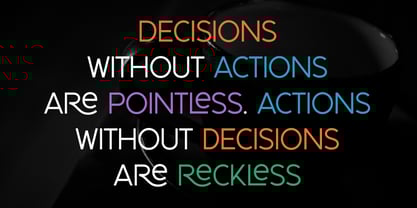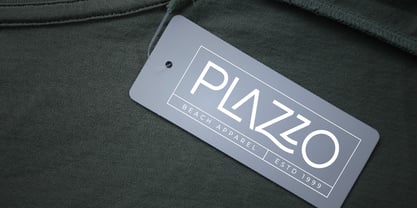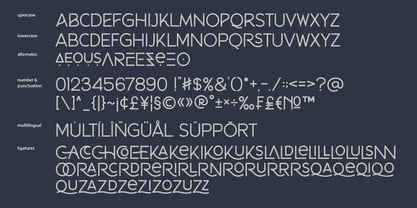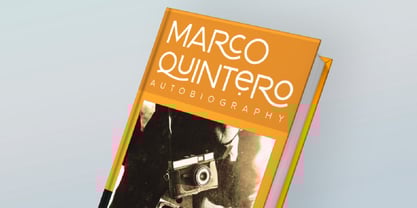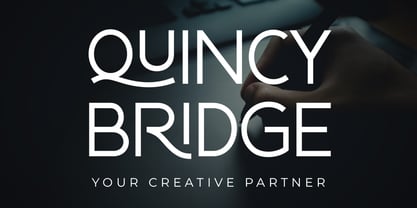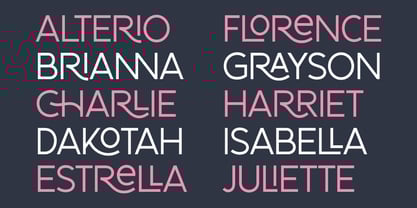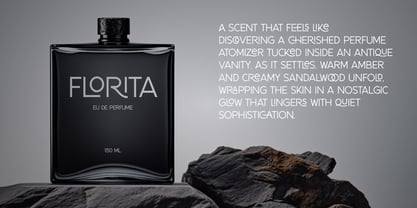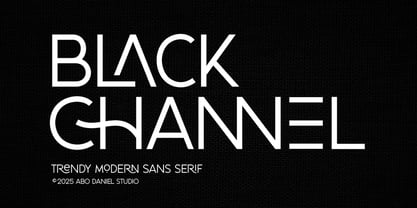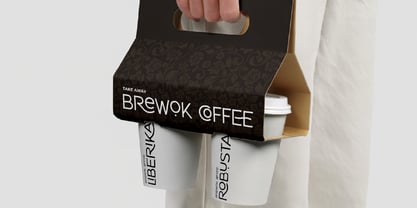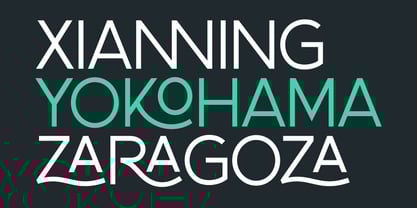
Black channel
by Abo Daniel
The Black channel Font Family was designed by Abo Daniel and published by Abo Daniel. Black channel contains 1 styles. More about this family
Black Channel is a modern simplicity typeface. Designed with a confident sans serif structure, this font captures today’s clean, forward-thinking aesthetic while staying highly versatile for everyday design needs. Its well-crafted proportions and smooth geometry create a polished look that feels both strong and refined. Black Channel comes with clean, thoughtfully designed ligatures that add a subtle sense of flow and sophistication without overpowering your layout. Perfect for branding, editorial headlines, logos, social media graphics, and contemporary packaging, Black Channel delivers clarity with style. If you’re looking for a trendy modern font that speaks clearly and confidently, Black Channel is ready to lead your visual direction.